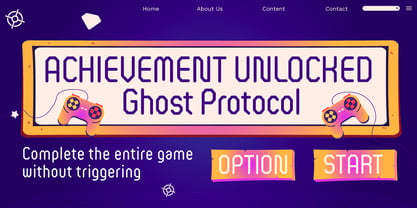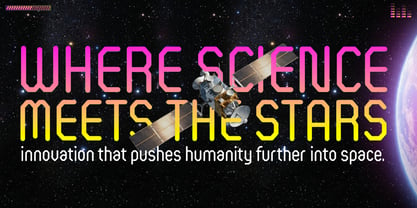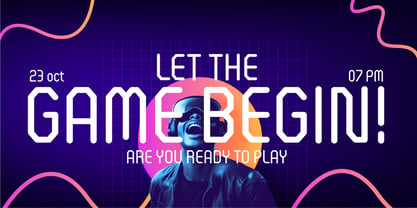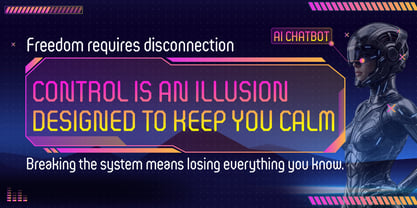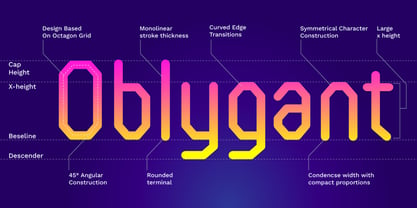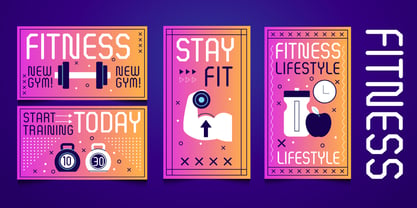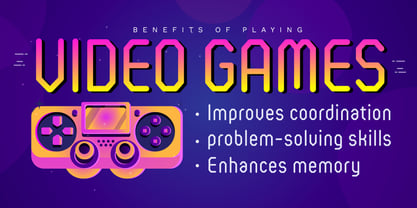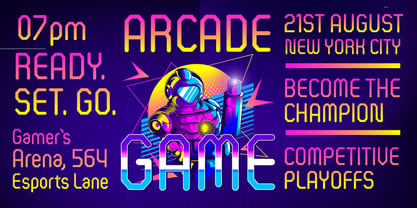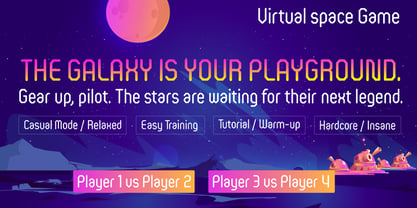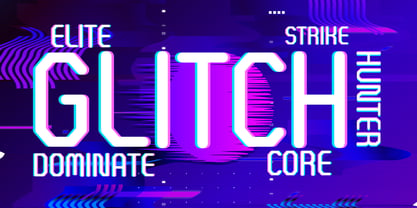
Octara Sans
The Octara Sans Font Family was designed by Sarfaraj Laliya and published by laliya. Octara Sans contains 1 styles. More about this family
Octara Sans is a contemporary geometric sans serif inspired by the precision and structure of octagonal forms. Designed with clean lines, balanced proportions, and a modern industrial character, it delivers a confident visual presence while maintaining excellent readability.
The typeface combines sharp geometry with smooth visual rhythm, making it suitable for branding, technology, packaging, editorial design, signage, user interfaces, and display applications. Its distinctive letterforms create a strong personality without compromising versatility.
Whether used in bold headlines or refined visual systems, Octara Sans offers a modern aesthetic that feels both functional and forward-looking. The design emphasizes clarity, consistency, and adaptability, making it a reliable choice for designers seeking a contemporary geometric sans serif with a unique character.